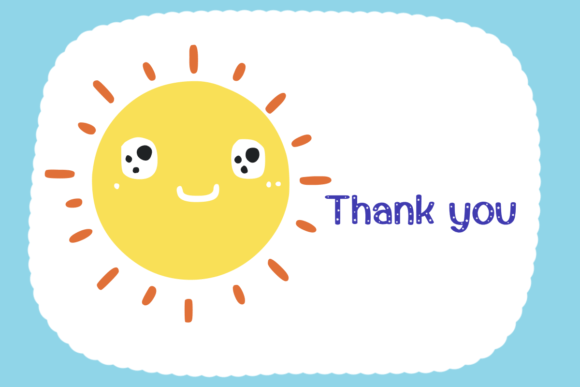
About Sun Font
Absolutely! Sun is a delightful and charming hand-drawn dingbats font that brings a touch of cuteness and playfulness to your designs. With its adorable sun-themed glyphs, this font is perfect for adding a sunny and joyful vibe to your projects.
Whether you’re working on digital designs, crafting projects, presentations, or even creating greeting cards, Sun will instantly bring a smile to your audience. The cute and cheerful sun glyphs can be used as decorative elements, icons, or even as part of larger illustrations. They add a whimsical and lighthearted touch to any design.
Imagine using Sun in a children’s book illustration, where the sun glyphs can be incorporated as friendly characters or playful accents. The hand-drawn style of the font adds a sense of authenticity and warmth, making the illustrations come alive with personality. Sun can also be applied to coloring books, worksheets, or educational materials for kids, making learning a fun and engaging experience.
Additionally, Sun can be a wonderful addition to digital designs such as social media graphics, website elements, or even logos. Its cute and eye-catching glyphs instantly grab attention and create a positive and cheerful atmosphere. Whether you’re designing for a summer-themed event, a children’s brand, or any project that requires a touch of joy and playfulness, Sun will make your designs shine.
Crafting projects also benefit from the charming nature of Sun. Whether you’re creating handmade cards, scrapbooks, or DIY decorations, adding Sun to your designs will make them stand out. Its unique glyphs can be used as focal points, borders, or embellishments, adding a delightful touch to your creations.
Overall, Sun is a cute and adorable hand-drawn dingbats font that brings a sunny and joyful atmosphere to your designs. It is perfect for a variety of projects, including digital designs, crafting, presentations, and more. So go ahead and let Sun brighten up your creative ideas and make your designs outstanding!